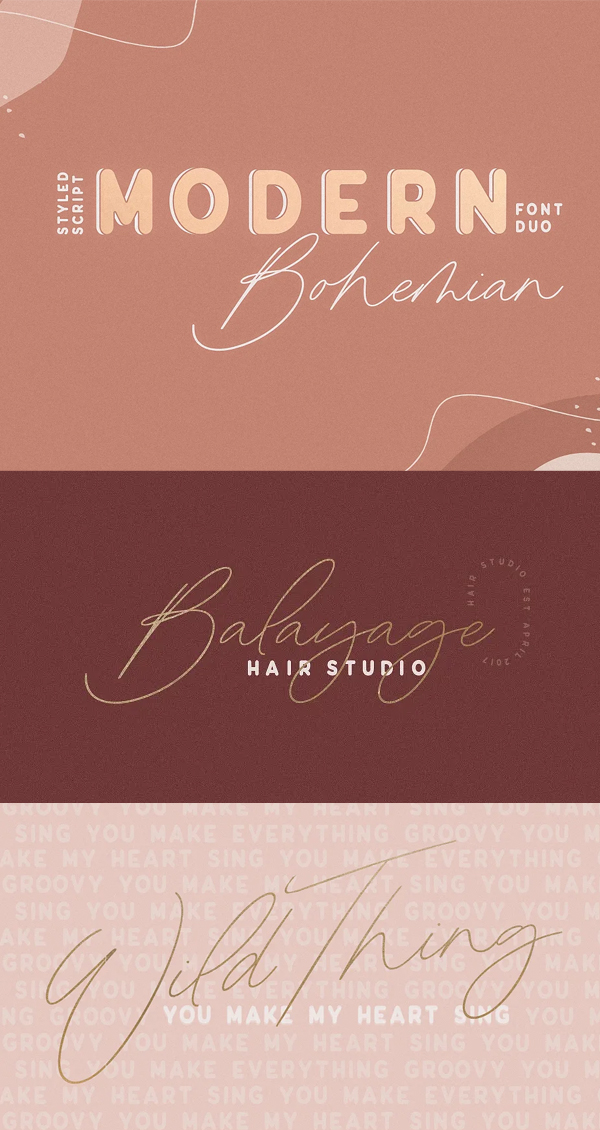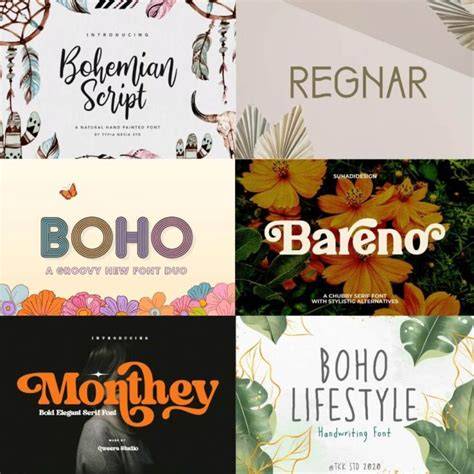
Modern Boho Fonts For 2023
The Beauty of Boho Fonts
It's 2023 and boho fonts are all the rage. Boho fonts are beautiful, unique, and give off a relaxed, carefree vibe. They bring a touch of fun and adventure to your designs. Whether you're creating a whimsical logo, a beautiful wedding invitation, or a vibrant website, boho fonts are sure to add a special, creative touch.
Boho fonts have their roots in the hippy and bohemian movements of the 1960s and 1970s. They are full of personality and can be used to express your creativity and individuality. They are perfect for all kinds of projects, from logos and invitations, to posters and websites.
Types of Boho Fonts
There are many different types of boho fonts, from sleek and modern to vintage and hand-drawn. Each type has its own unique look and feel. Here are some of the most popular boho font styles:
- Hand-Drawn: Hand-drawn fonts are perfect for giving a relaxed, carefree vibe to your designs. They are full of personality, and can be used to create a unique and fun look.
- Brush Script: Brush script fonts are perfect for adding a touch of elegance to your designs. They are often used in luxury logos and branding.
- Modern: Modern boho fonts are perfect for creating a sleek, contemporary look. They are often used in logos, posters, and websites.
- Vintage: Vintage fonts are perfect for adding a touch of nostalgia to your designs. They are often used in logos and invitations.
Where to Find the Best Boho Fonts
How to Use Boho Fonts
Boho fonts can be used in a variety of ways. They are perfect for logos, posters, invitations, and websites. They can also be used in print materials such as flyers and brochures.
When using boho fonts, it's important to choose the right type and size. Too many fonts can make your design look cluttered and unprofessional, so it's best to stick to one or two fonts. Make sure to choose fonts that are easy to read and that complement each other.
Boho fonts are perfect for adding a unique, creative touch to your designs. They are full of personality and can be used to express your creativity and individuality. They can be used in a variety of ways, from logos and invitations, to posters and websites. It's important to choose the right type and size of font to ensure your design looks professional and polished.
Whether you're looking for a sleek, modern font or a vintage, hand-drawn font, there are many places to find high-quality boho fonts. So don't wait, get creative and start using boho fonts to make your designs stand out in 2023!